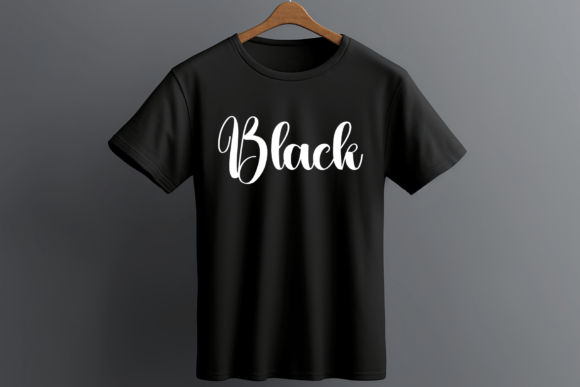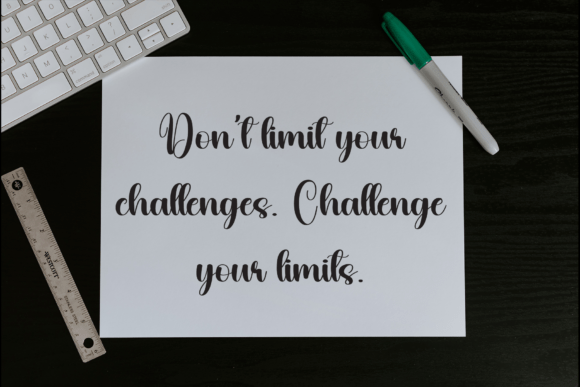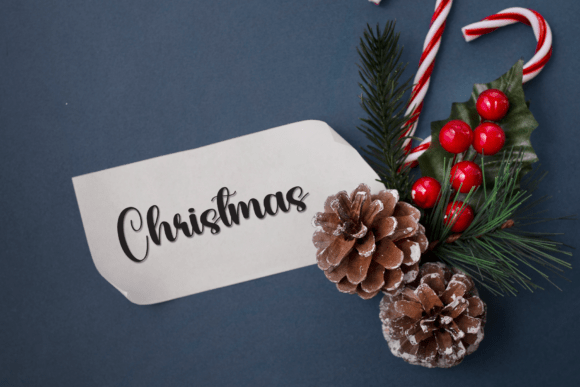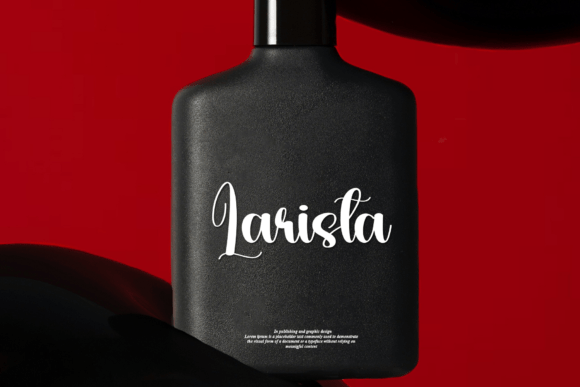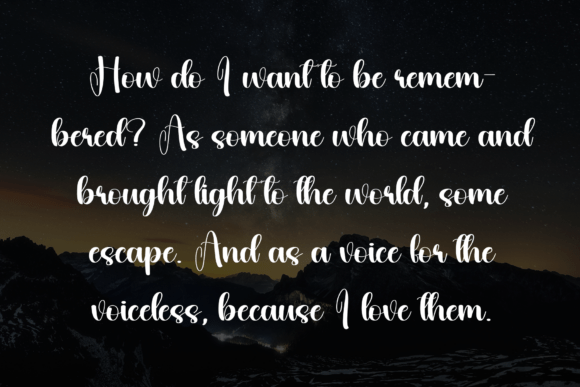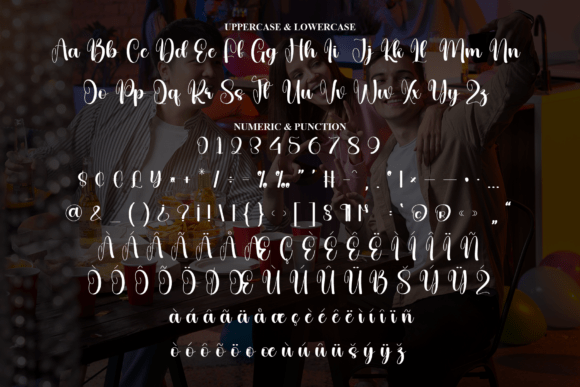
Introduction to Party Wednesday Font Font
Fonts play a crucial role in design, and the Party Wednesday Font font is a typeface that brings both character and versatility to any project. Whether you’re working on a branding project, a website, or a print design, the Party Wednesday Font font offers a unique style that can elevate your work.
Party Wednesday is a stylish script font that exudes artistic flair and contemporary elegance.
Featuring fluid brush strokes, dynamic curves, and expressive letterforms, it captures the essence of hand-painted calligraphy with a modern twist Ideal for logos, invitations, packaging, and social media graphics, it adds a creative and sophisticated touch to any design.
Key Features of Party Wednesday Font Font
Why Choose Party Wednesday Font Font?
The Party Wednesday Font font is more than just a typeface – it’s a design tool that helps you communicate your message with style and clarity. Its unique character set and versatile design make it suitable for a wide range of applications, from elegant invitations to bold headlines.
With its carefully crafted letterforms and balanced proportions, the Party Wednesday Font font ensures readability and visual appeal across all mediums.
What makes Party Wednesday Font font special?
The Party Wednesday Font font stands out with its unique design, exceptional readability, and versatility across various design applications.